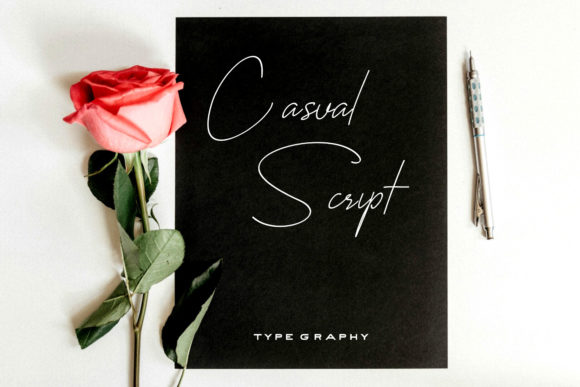
The Magic of Casual Script: A Delicate Handwritten Font
I still remember the time I was working on a wedding invitation project, and my client asked for a font that would add a touch of romance and whimsy to the design. I scoured the internet, tried out countless fonts, but nothing seemed quite right. That was until I stumbled upon Casual Script, a delicate and thin lettered handwritten font that stole my heart. In this article, I’ll share my love for Casual Script, its uses, and how to make the most of it in your designs.
An Honest Review of Casual Script
So, what makes Casual Script so special? Here are a few things I love about it:
- ✨ Delicate and elegant: Casual Script has a beautiful, hand-crafted feel that’s perfect for adding a touch of sophistication to your designs.
- ✅ Versatile: This font is incredibly versatile and can be used for a wide range of projects, from greeting cards to headlines.
- 💕 Romantic feel: Casual Script has a way of adding a romantic touch to your designs, making it perfect for wedding invitations, Valentine’s Day cards, and more.
Of course, no font is perfect, and Casual Script has a few quirks:
- 🤔 Limited use in body text: While Casual Script is beautiful, it’s not the best choice for body text due to its delicate nature.
- ⚠️ Glyph limitations: Some users have reported issues with glyphs and special characters, so be sure to test the font thoroughly before using it in a project.
- Experiment with OpenType features like ligatures and stylistic alternates to add some personality to your text.
- Explore the Glyphs panel to access special characters and ligatures.
The Story Behind Casual Script
Casual Script was designed with the intention of creating a beautiful, elegant font that would add a touch of romance to any project. The designer wanted to create a font that was both delicate and versatile, making it perfect for a wide range of applications.
- Q: Is Casual Script suitable for body text?
- A: While Casual Script is beautiful, it’s not the best choice for body text due to its delicate nature.
- Q: Does Casual Script support OpenType features?
- A: Yes, Casual Script supports OpenType features like ligatures and stylistic alternates.